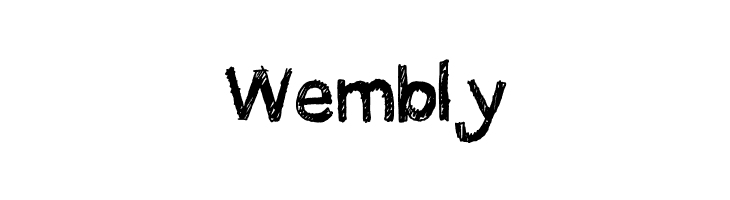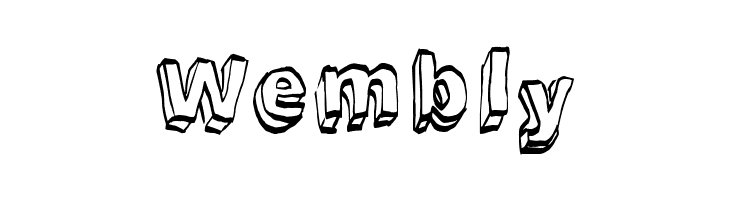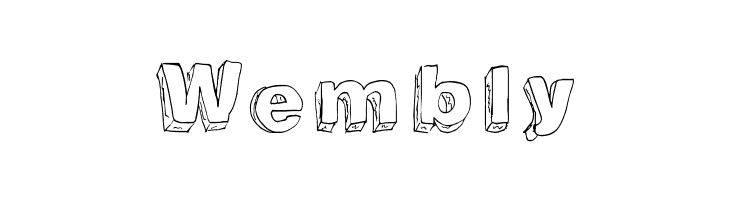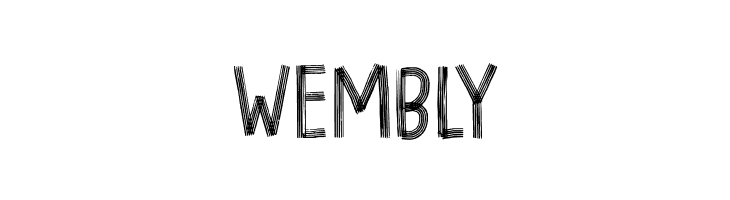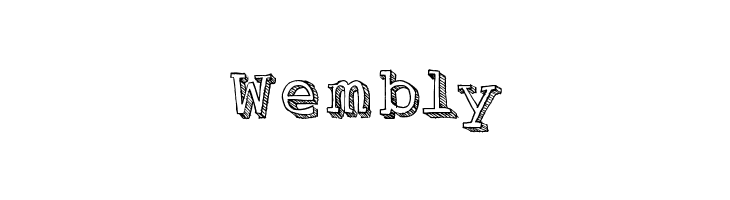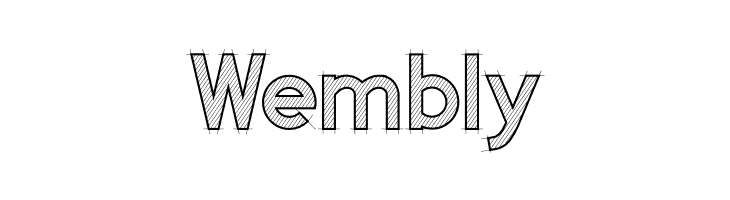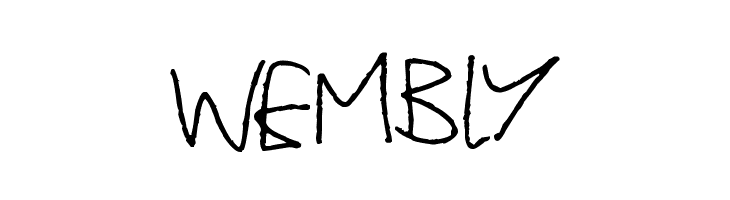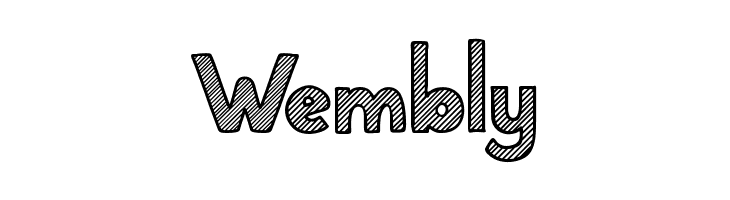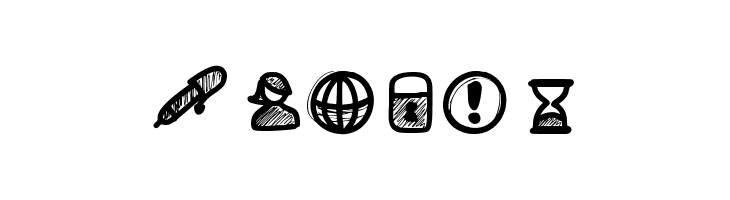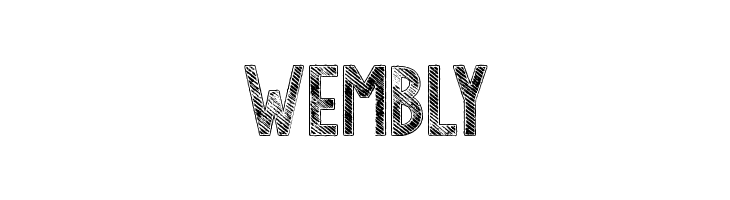
A bold, hand-drawn font with a playful, 3D sketch style.
A playful, sketch-like font with a three-dimensional, hand-drawn appearance.
A playful, hand-drawn font with a sketch-like, three-dimensional appearance.
A playful, textured font with a hand-drawn, sketch-like appearance.
An artistic, sketch-like font with irregular strokes and dynamic design.
A playful, bold font with a sketch-like, 3D comic style.
A bold, sketch-like font with a playful, hand-drawn appearance.
A playful, hand-drawn font with a sketch-like, dynamic appearance.
A bold, hand-drawn style font with a textured, sketch-like finish.
A bold, playful font with a hand-drawn, sketch-like texture.
A playful, hand-drawn font with a sketchy, textured style.
A playful, hand-drawn font with a chalkboard texture and sketch-like appearance.
Whimsical hand-drawn doodle extras with a playful, sketchy style.
A playful, hand-drawn font with bold outlines and sketch-like texture.
A bold, sketch-like font with a hand-drawn, artistic style.
Hand-drawn, grunge-style social media icon set with sketchy circular backgrounds.
Hand-drawn doodle shapes and symbols with a whimsical, sketchy style.
A bold, hand-drawn, expanded italic font with a sketch-like texture.
A bold, hand-drawn 3D font with a rugged, sketch-like texture.
A bold, hand-drawn italic font with a textured, sketch-like appearance.
A bold, textured font with a hand-drawn, sketch-like appearance.
A bold, italic font with a sketch-like texture and dynamic style.
A bold, italicized font with a textured, sketch-like appearance.
A playful, hand-drawn font with a sketch-like, three-dimensional effect.
A playful, hand-drawn font with a sketch-like, three-dimensional appearance.
A bold, sketch-style font with a hand-drawn, comic book aesthetic.
A playful, hand-drawn font with a crayon-like, sketchy texture.